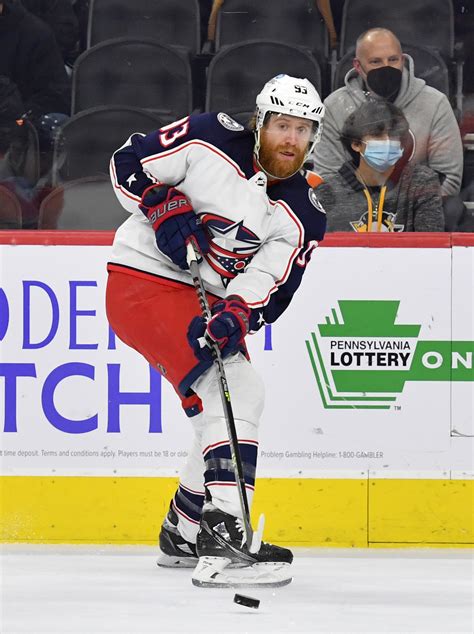
Columbus Blue Jackets Jersey Font: A Deep Dive
Hey hockey fans! Today, we’re diving deep into the Columbus Blue Jackets jersey font . Ever wondered about the specific font used on those iconic sweaters? Or maybe you’re a designer looking to replicate the look? Well, you’ve come to the right place. We’ll cover everything from the font’s official name to its evolution and where you can find it. Get ready to geek out with us as we explore the typography behind the Jackets’ brand. Understanding the Columbus Blue Jackets jersey font is more than just knowing what it’s called; it’s about appreciating the visual identity of the team and how it contributes to the overall fan experience. It’s about recognizing the subtle details that make a jersey instantly recognizable and connecting with the rich history of the franchise. It’s also incredibly helpful if you’re looking to create your own fan gear, design a custom jersey, or simply want to know more about the team’s visual branding. Let’s face it, the font is a crucial element. The font communicates the team’s identity. Fonts can change over time, and the Blue Jackets are no exception, so understanding its evolution is also something important, which we will address later in the article. Let’s get started, shall we?
Unveiling the Official Columbus Blue Jackets Jersey Font
Alright, let’s get down to business. The primary font used on the Columbus Blue Jackets jerseys is a custom font, meaning it was designed specifically for the team. While it doesn’t have a widely available, generic name, it’s often referred to as the Blue Jackets font or something similar. This custom design is a key aspect of the team’s branding, helping them stand out and create a unique visual identity. This font is very recognizable because it contributes to a feeling of cohesion. The design is modern, bold, and has a strong presence, which aligns with the team’s image and represents the team’s characteristics, like their determination, tenacity, and strength. The font is used for the player names on the back of the jersey and the numbers on both the back and sleeves. These details are important when creating the visual identity of the team because they contribute to a cohesive experience. If you are looking to replicate the font, you’ll likely need to find a digital version of it. You may find some similar fonts that will help you approximate the look. The font can also be the basis for any other branding material the team uses, such as merchandise, digital content, or marketing materials. Using a specific font in different contexts will reinforce the team’s brand identity and make it more recognizable and memorable for fans.
This kind of consistency is essential in the world of sports branding, where visual cues are used to build a strong connection between the team and its fans. The font choice also says a lot about the team’s character. The boldness and the strong lines represent a team that is not afraid to stand out and take on any challenge. The font on the jerseys is not just a bunch of letters and numbers; it’s a visual representation of the team’s identity. It communicates the team’s character and gives fans a clear idea of what the team is all about. The font is a part of the team’s legacy, and it will be something fans will remember for many years to come. Therefore, the Columbus Blue Jackets jersey font is more than just a font; it is a symbol of the team’s identity and its connection to the city of Columbus and its fans.
The Evolution of the Blue Jackets Jersey Font
Like any team, the Columbus Blue Jackets haven’t always used the same font. Over the years, the font has undergone subtle changes. These changes usually reflect the team’s evolving brand identity and current trends in sports design. Let’s take a look at some of the key milestones in the evolution of the Blue Jackets jersey font . When the team first debuted in the NHL, the font was different than what it is today. It was likely a more traditional hockey-style font, which was common at the time. As the years went by, the font was updated and refined, to reflect the team’s character.
In the early years, the font may have been more conventional. However, with the passage of time and the introduction of new jerseys, the font evolved to the custom design we see today. The changes usually reflect broader design trends and the team’s evolving brand identity. Some of the changes might include slight modifications to the letterforms, the weight of the font, and the overall style. All these changes work towards a better image for the franchise. The evolution is always important, because it allows the team to stay current and reflect changes in style. These changes can be subtle, but they have a big impact on the overall look of the jersey. These changes are crucial because they help the team maintain its relevance and connect with its fans. It’s a way for the team to stay fresh and contemporary. It’s important to remember that these changes are always made with the team’s brand identity in mind. The team will always aim to stay true to its roots. The evolution of the Columbus Blue Jackets jersey font tells a story of the team’s growth, and it reflects its commitment to maintaining a strong visual identity.
These modifications might include changes to the font’s weight, the angles of the letters, or even the overall shape of the numbers. Each tweak represents a small step in the team’s overall identity. The Blue Jackets, like other teams, have probably tweaked the font to match the modern trends in sports design. These changes can keep the team’s look fresh. The font evolution is a testament to the team’s continuous effort to give fans a great experience. The font is an important aspect of the team’s history. It is a visual cue that tells the story of the team’s history. These subtle changes give the font a modern feel while still honoring the team’s legacy. This careful evolution helps keep the team’s image fresh. Overall, it’s a testament to the team’s commitment to excellence and its connection with its fans.
Font Style and Characteristics
Let’s dive into the specifics of the Columbus Blue Jackets jersey font . The font is generally characterized by a bold, slightly condensed appearance. This font choice ensures that player names and numbers are easily readable from a distance, which is important during fast-paced hockey games. The font style conveys strength, determination, and a modern aesthetic, which aligns perfectly with the team’s identity. The design also incorporates unique elements. The font’s strong presence and clarity make it immediately recognizable. The style of the font plays a role in the overall aesthetic.
The font has strong, clean lines, which give it a modern look. The font’s clarity is essential for easy readability. Boldness is important because it can project a feeling of strength and dominance. The font is not just about aesthetics; it’s also about functionality. The designers put thought into this aspect. The font’s unique characteristics contribute to the overall visual identity of the team and contribute to a feeling of cohesion. The design also features other aspects, such as the font’s weight, which contributes to the perception of the team’s character. In addition to the font’s design, the color choices used with the font are also essential to reinforce the team’s identity. The color schemes are consistent, and they contribute to a strong visual identity. The font contributes to the team’s modern image. The font’s design choices are important because they are directly linked to the team’s identity. It gives the team a competitive edge. The font’s design is all about conveying a message of power and determination.
Analyzing the Details
Looking closer, you might notice subtle details that set the Columbus Blue Jackets jersey font apart. The slight slant or angle of the letters, the consistent width of the strokes, and the way the numbers are designed all contribute to the font’s overall look. These details enhance the visual identity and are key to the font’s unique design. The goal is to make a font that is readable.
It is an integral part of the team’s identity. The font is an important component of the team’s brand. The Columbus Blue Jackets jersey font tells a story of the team’s growth. The font’s evolution is a reflection of the team’s visual identity. It connects the team to the city and the fans. So, the next time you see a Blue Jackets jersey, take a moment to appreciate the font. It’s more than just a design element; it’s a statement. It’s a visual representation of a team, its history, and its fans.